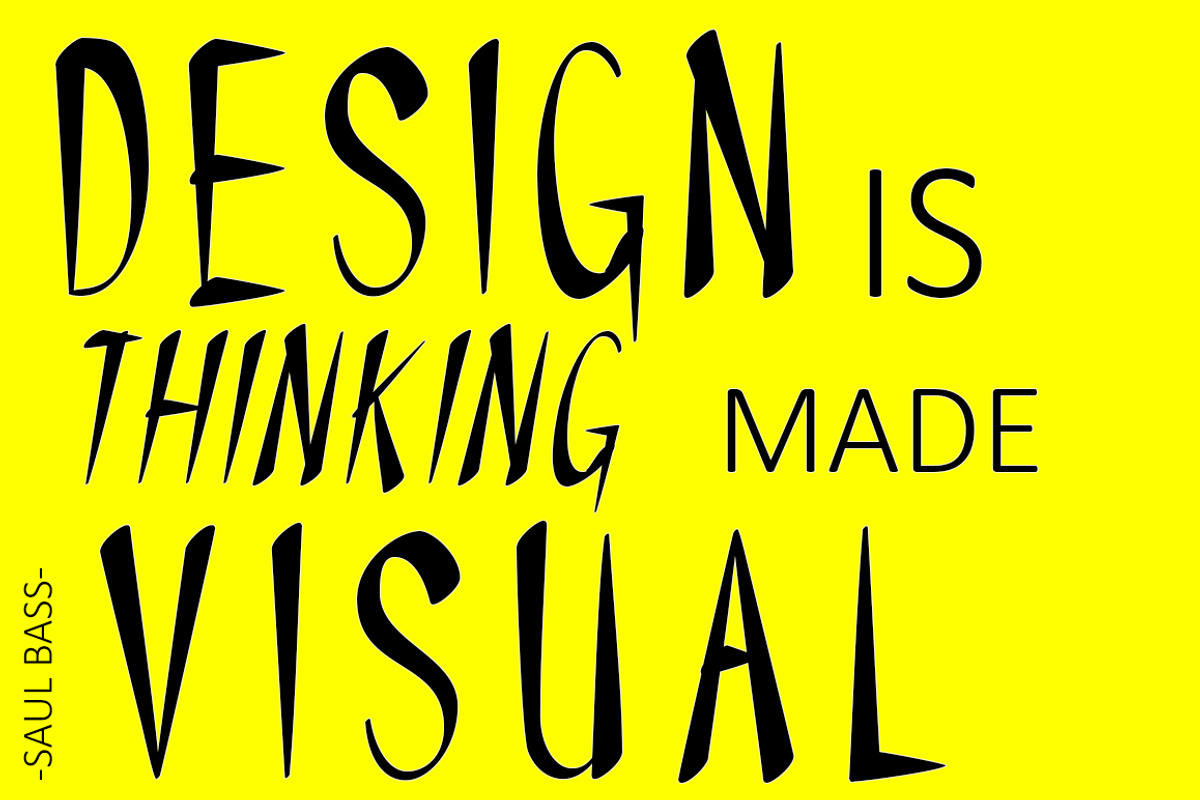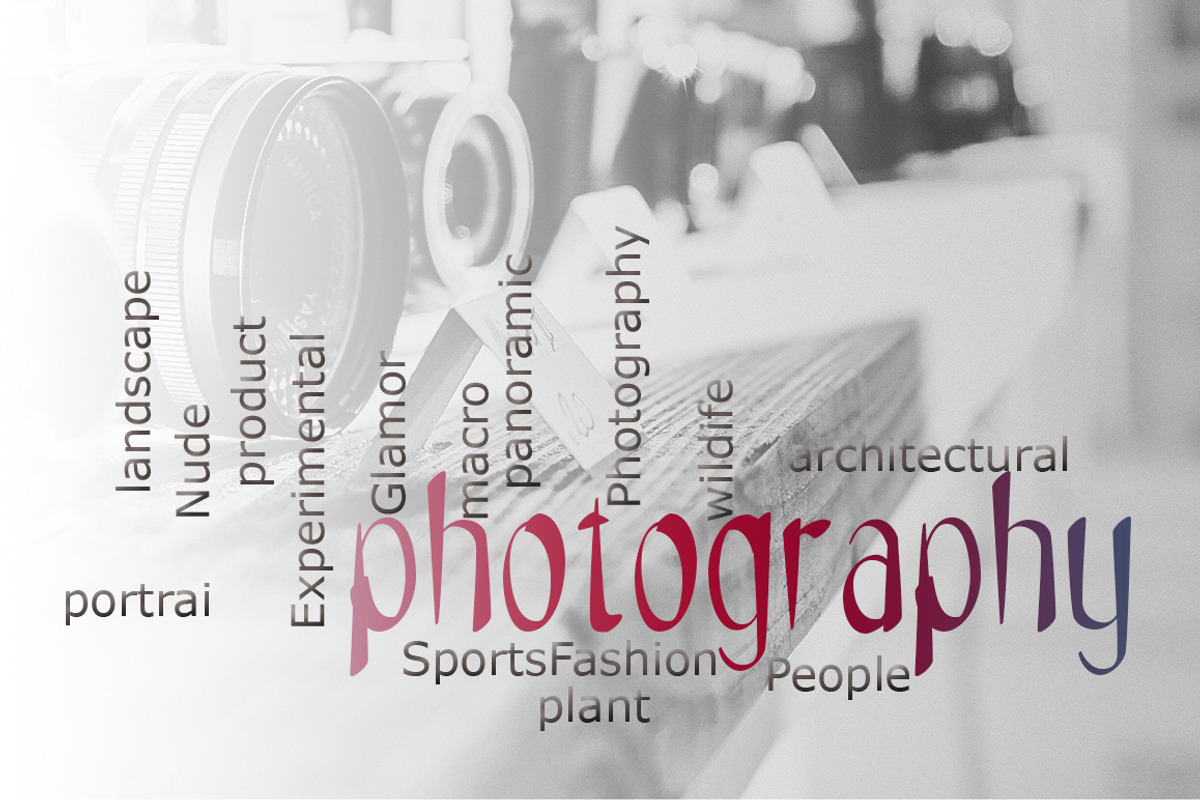
NYOEHOKA Modern Sans Serif
NYOEHOKA - Modern Sans Serif
NYOEHOKA is a very nice font to be a staple in all my freelance work. Very beautiful for quotes, logos, invitations, magazines, web, and more. With two styles (regular, + Italic), easy to use in various contexts and works very well for suite branding.
- 2 Styles : Regular - Italic
- 215 characters (Basic & Advanced Sets)
- Lowercase & Uppercase